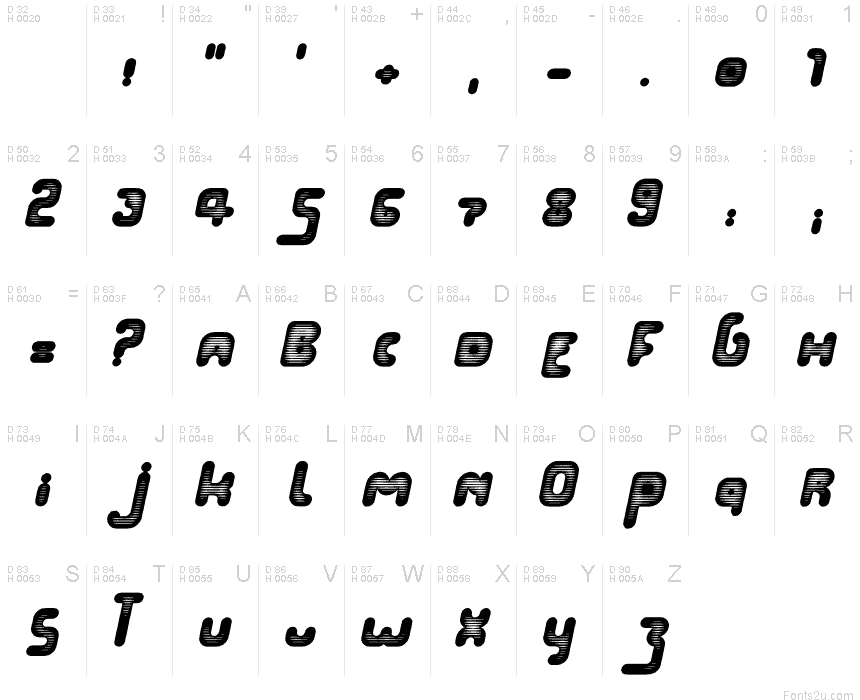
PopTivi by Imagex is a free eroded cartoon display font with chunky, softly rounded letters. Horizontal scratches cut through the broad strokes, giving the lettering a rough striped texture. The uneven shapes feel cheerfully unruly.
Its comic-book character suits children's entertainment, snack packaging, playful event posters, and lively youth festival merchandise. The repeated scuffs can echo speed lines, rough paper, or hand-drawn shading in nearby artwork. It is especially apt for cartoons and games built around noisy, mischievous humor.